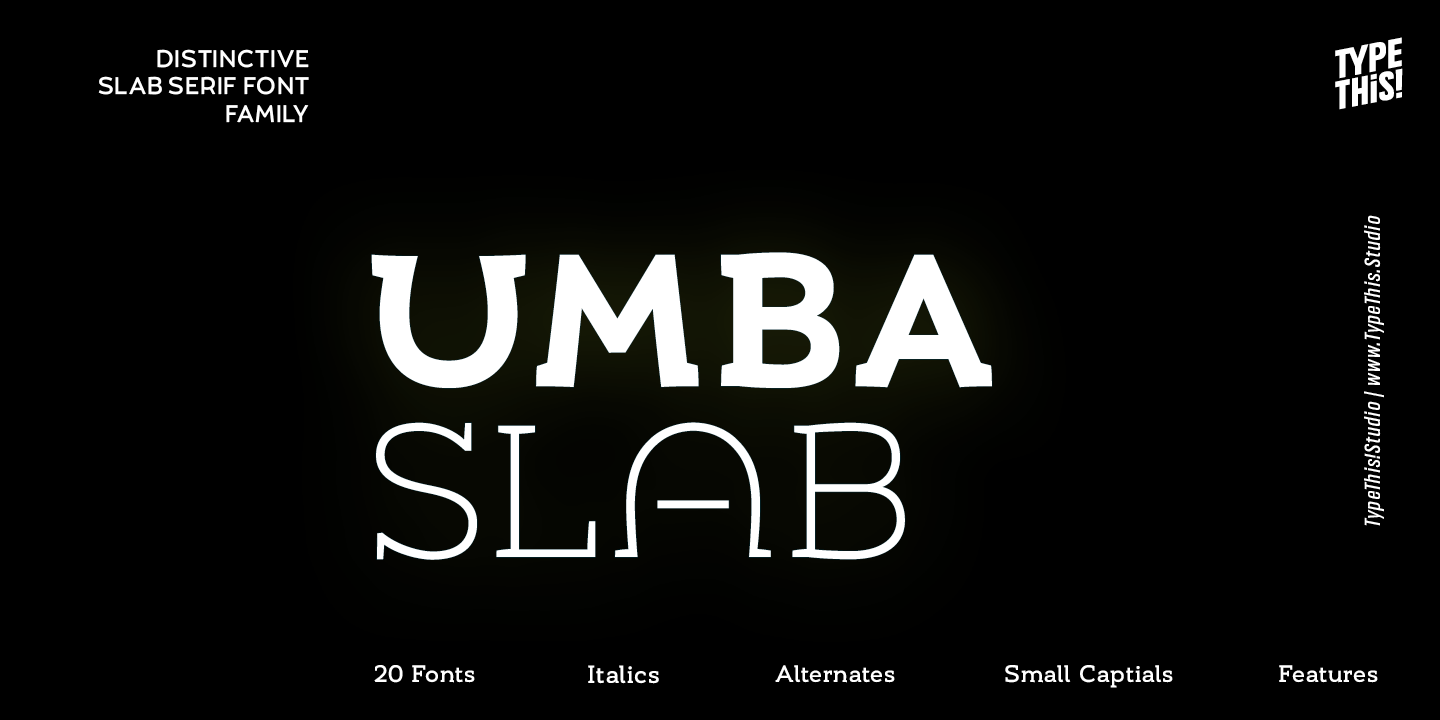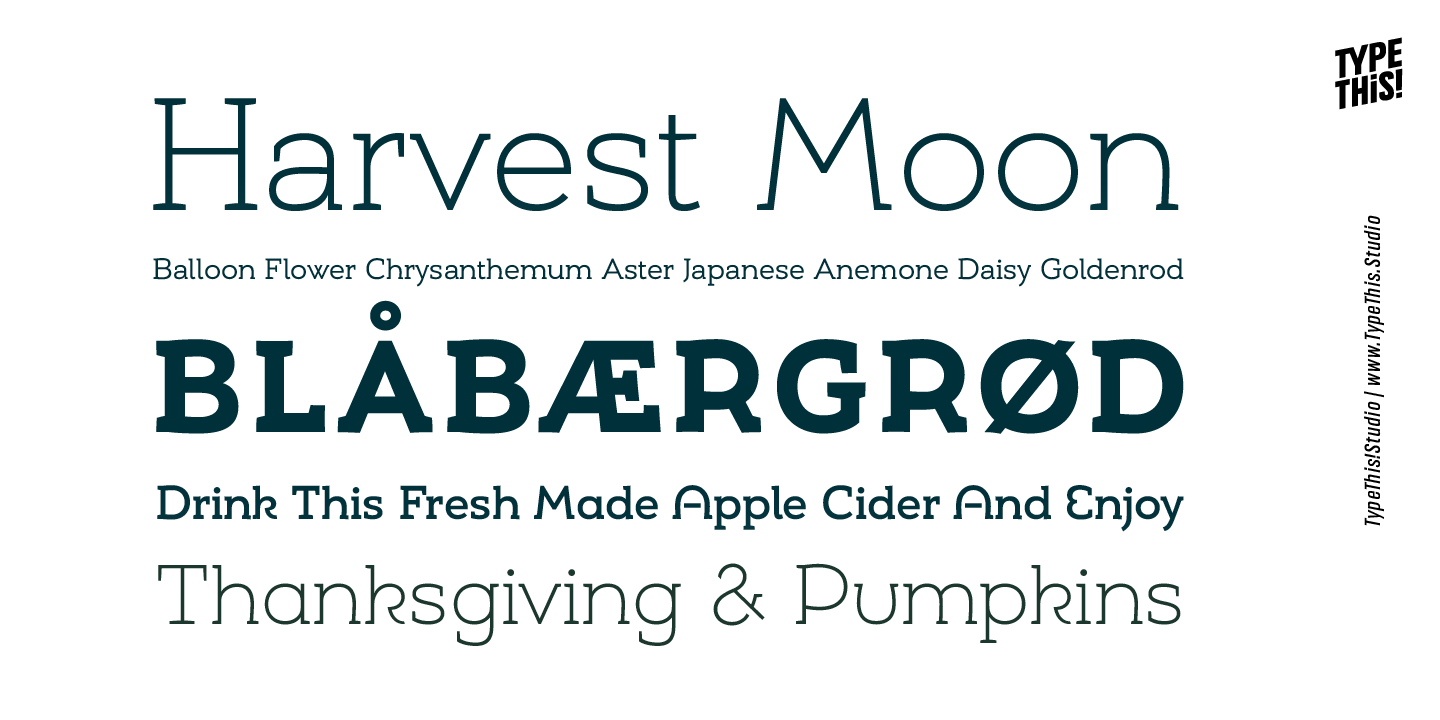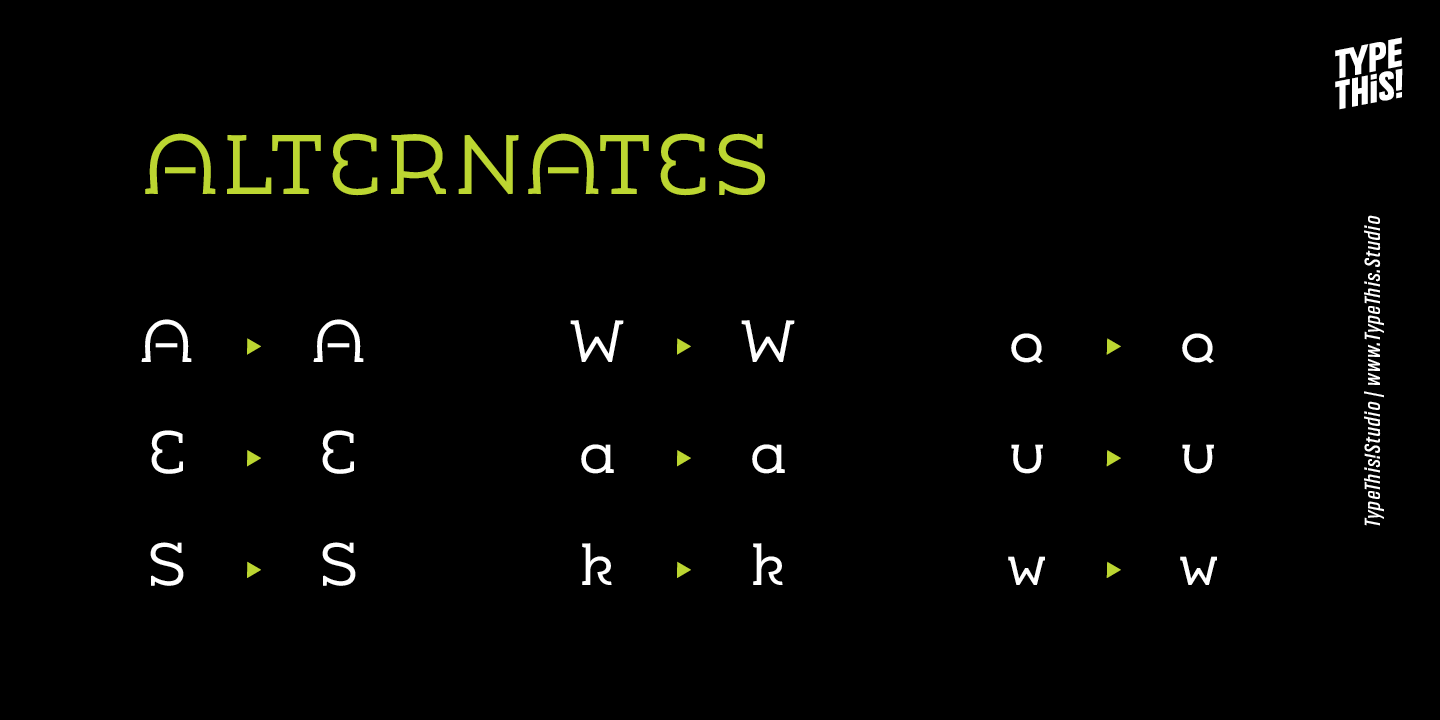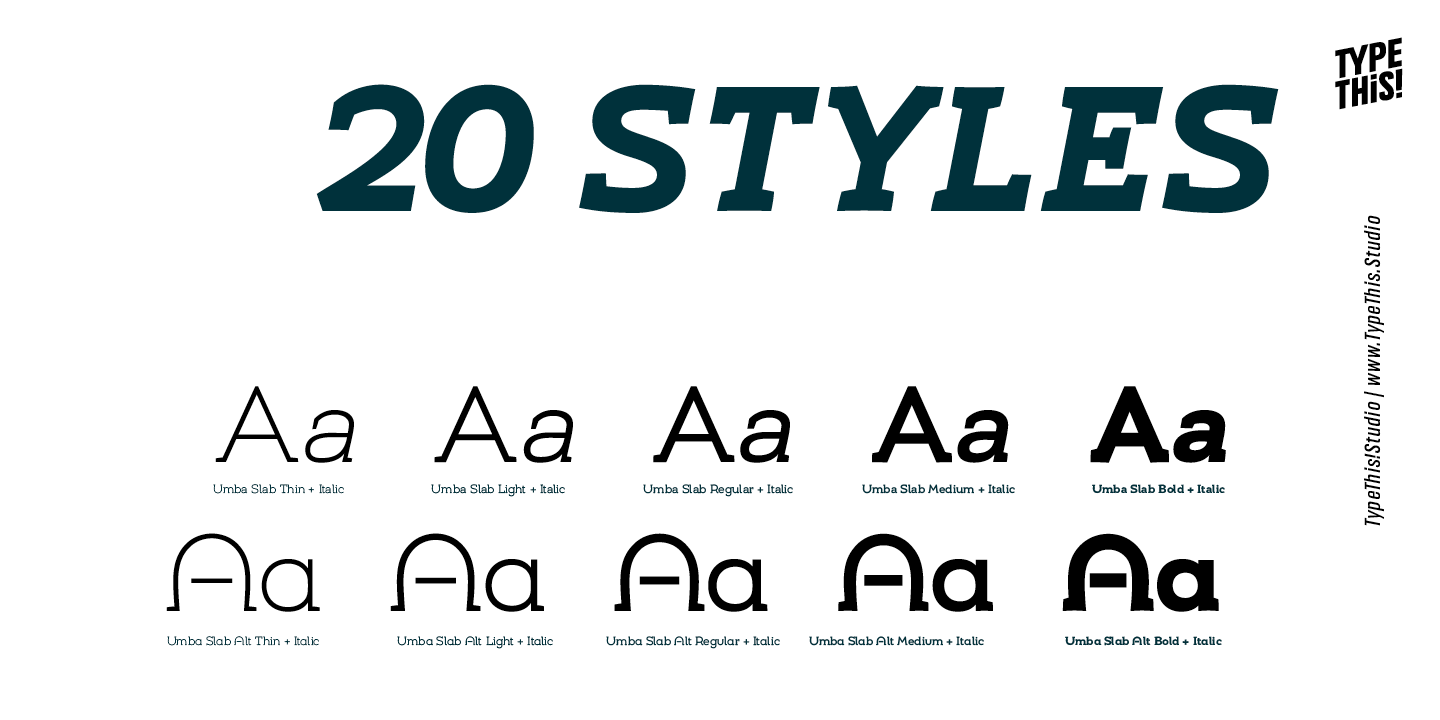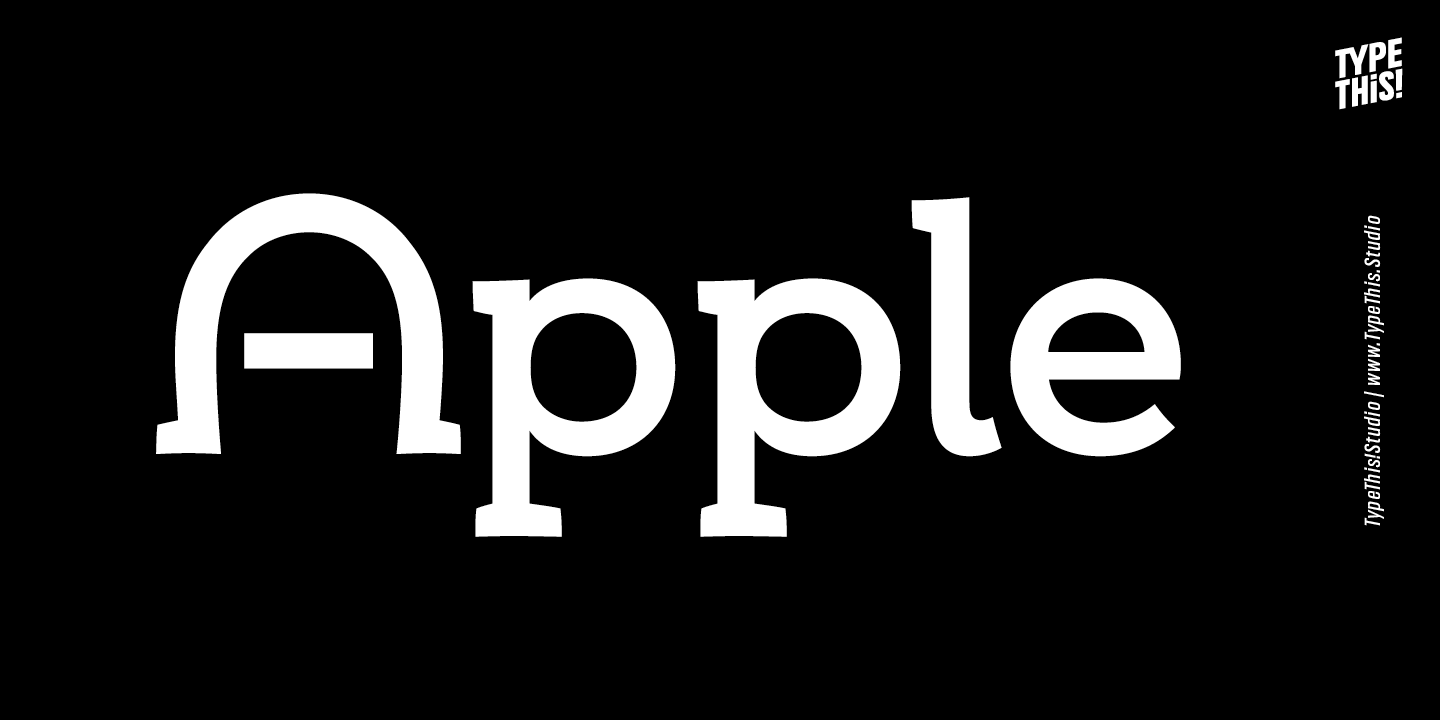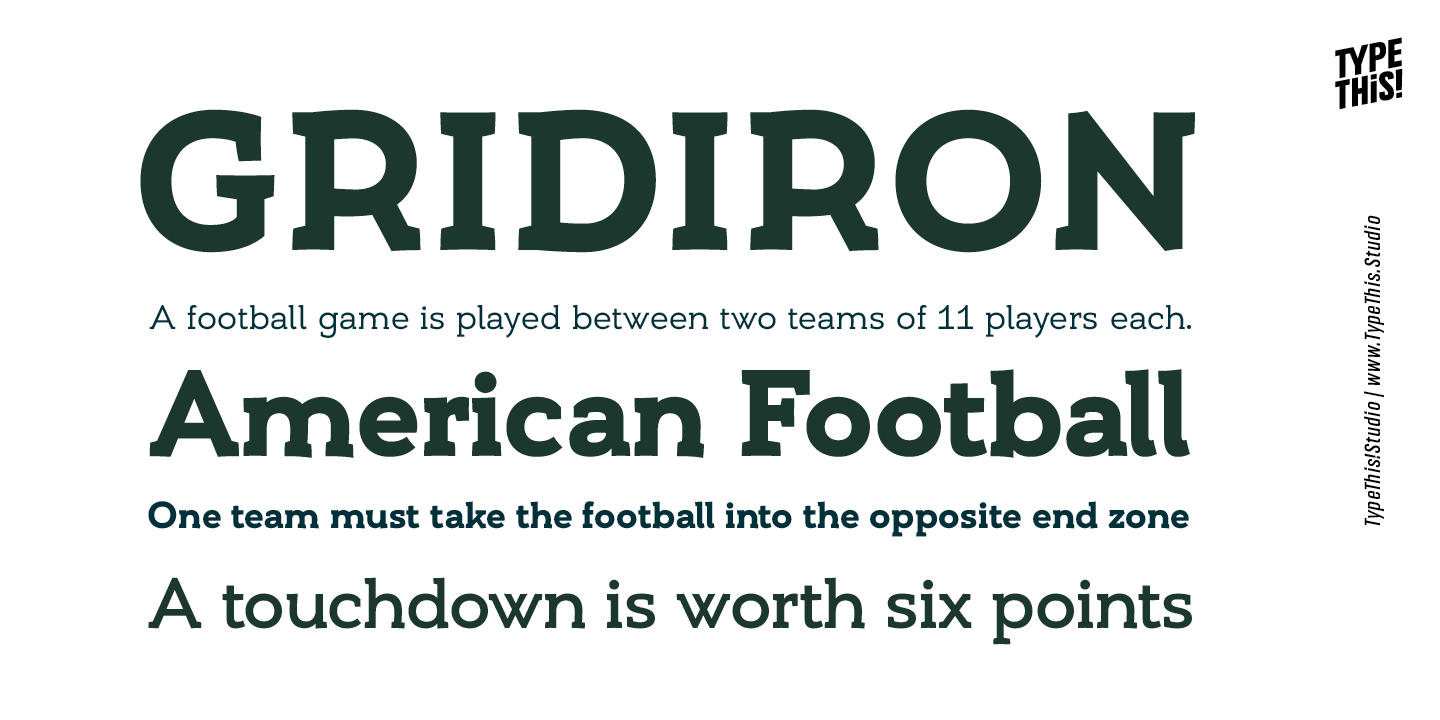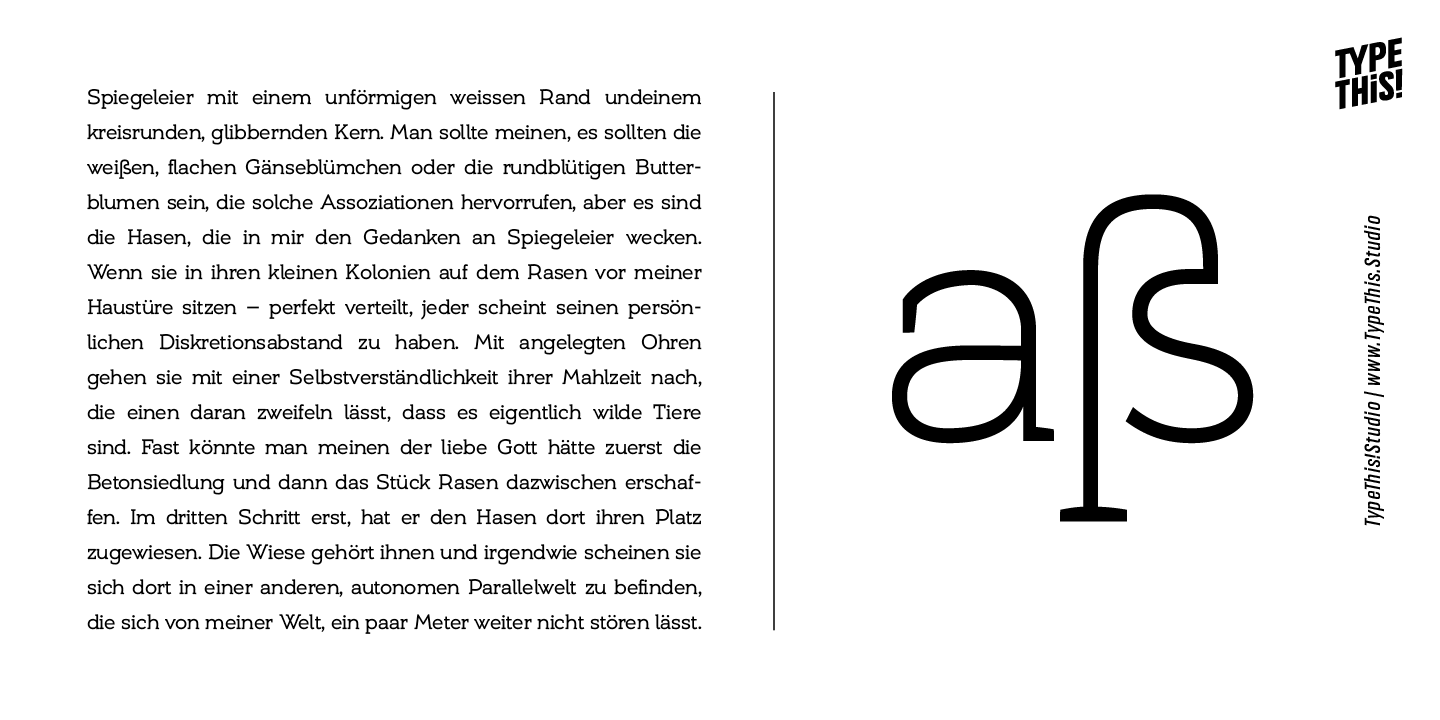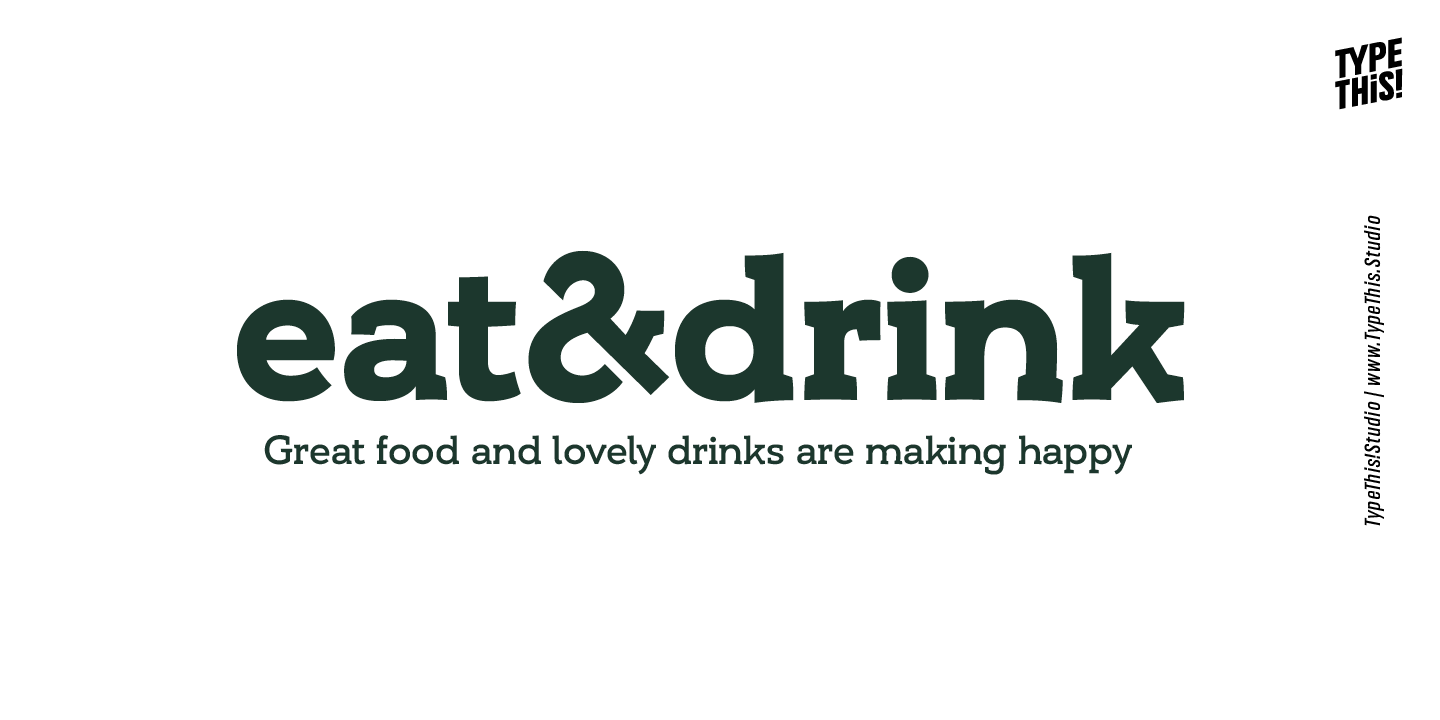
Umba Slab Complete Family (30 fonts)
From Anita Jürgeleit / TypeThis! Studio
Twenty styles from thin to bold and matching italics help you create design with a strong essence. Separate styles for alternate and small caps will show up in your font menu, making sure that you always stay aware of the wide range of possibilities of your new favourite font.
UMBA Slab lifts your design up to the next level.